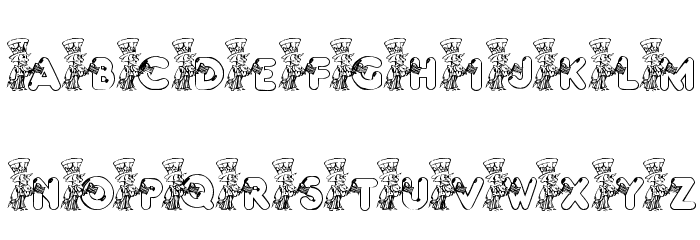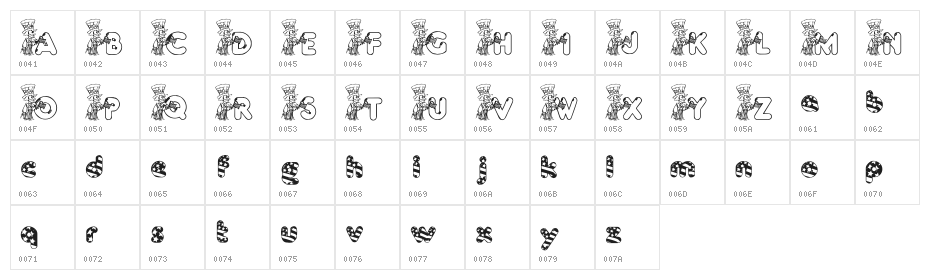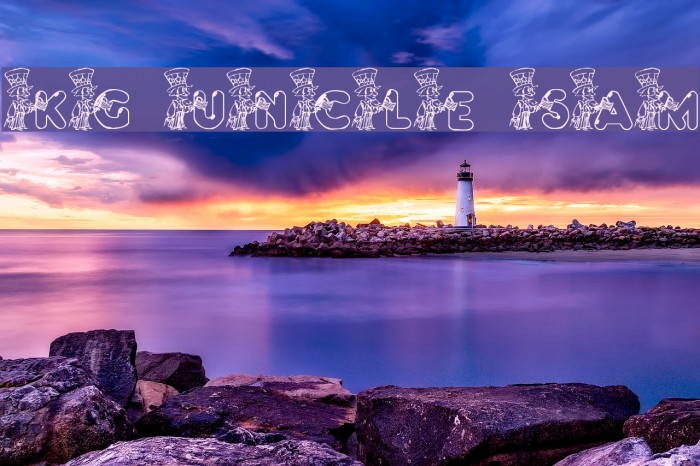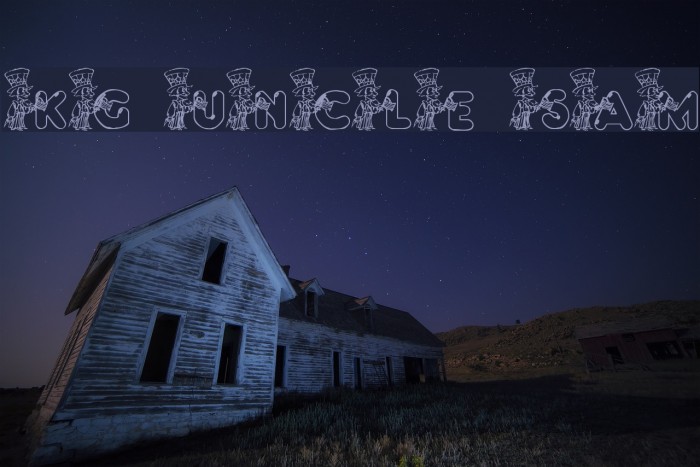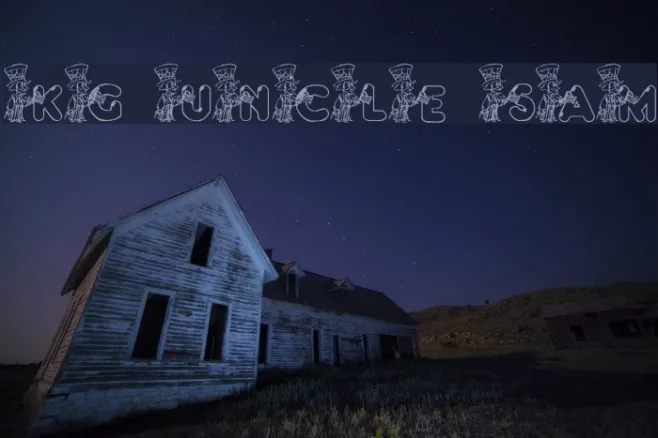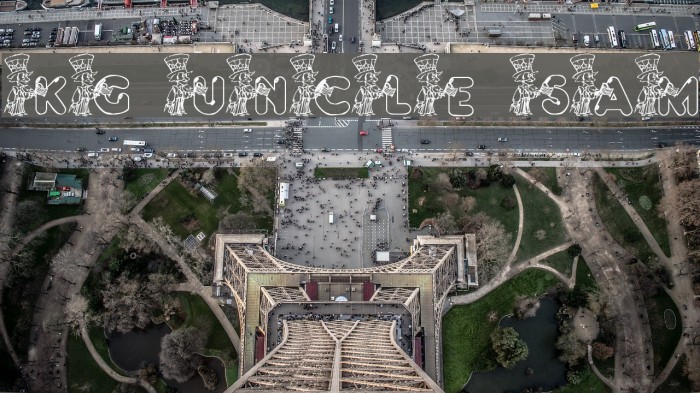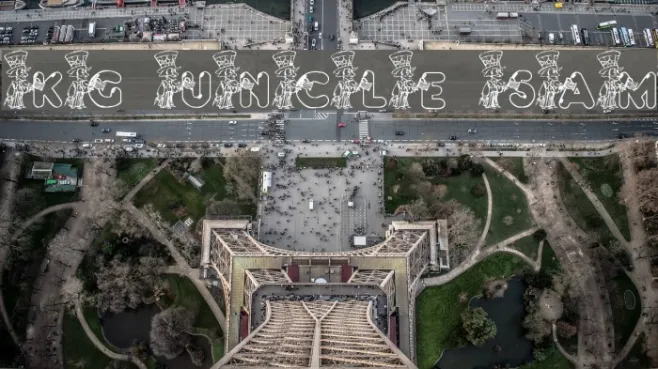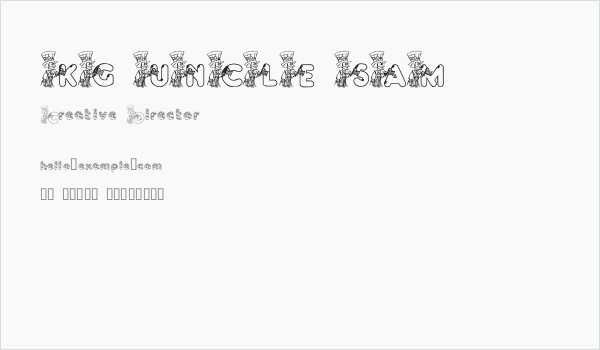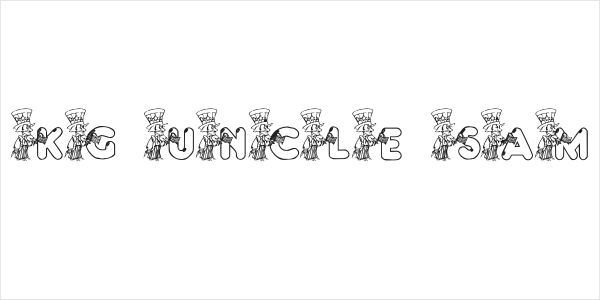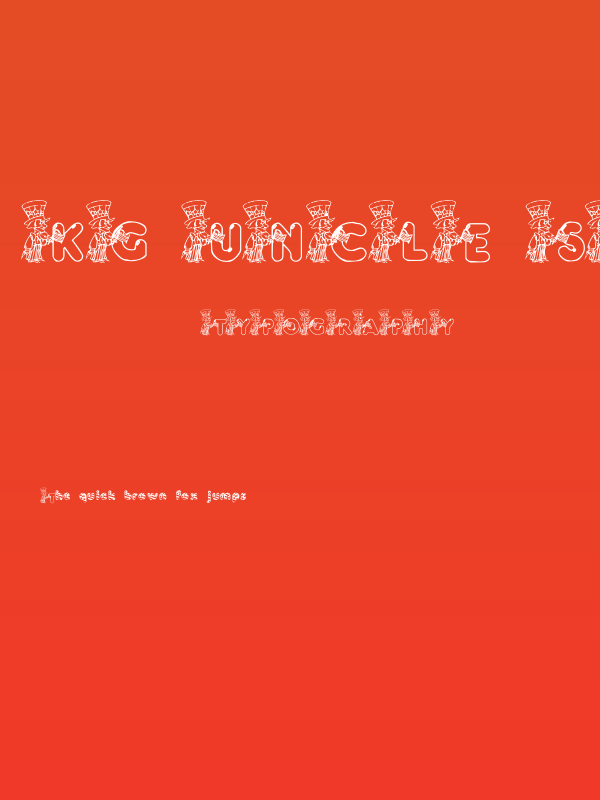
KG UNCLE SAM Font
KG UNCLE SAM Description
This font features a playful and patriotic theme, with each character incorporating elements of the American flag and iconic imagery. The uppercase letters are adorned with Uncle Sam motifs, while the lowercase letters display stars and stripes patterns. The bold, decorative style makes it stand out, capturing a sense of national pride and celebration. The characters are rounded and filled with intricate details, adding a whimsical touch. This font is ideal for projects that require a strong, thematic presence, such as holiday promotions or themed events.
| Proposed Projects | Perfect for Independence Day posters, patriotic event banners, themed party invitations, and educational materials about American history. |